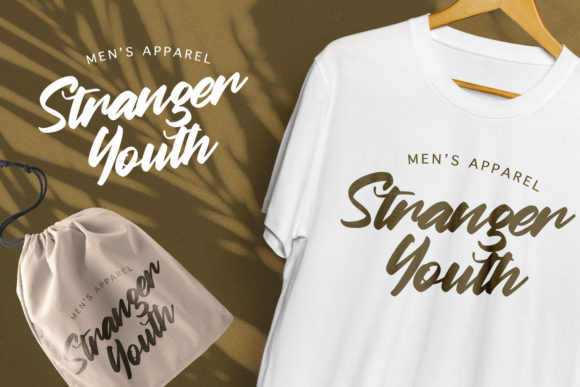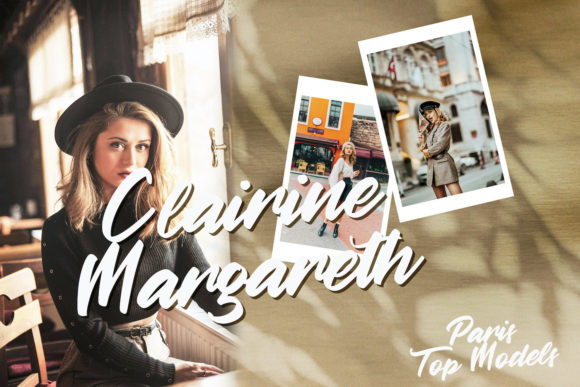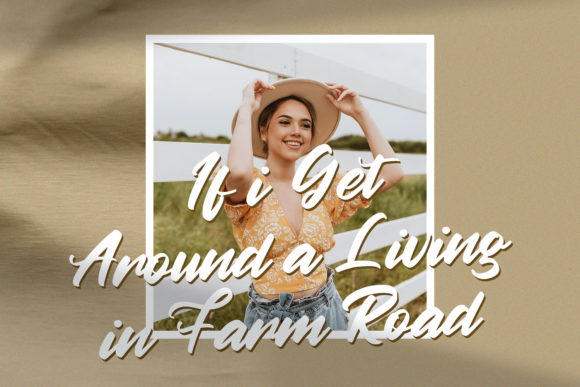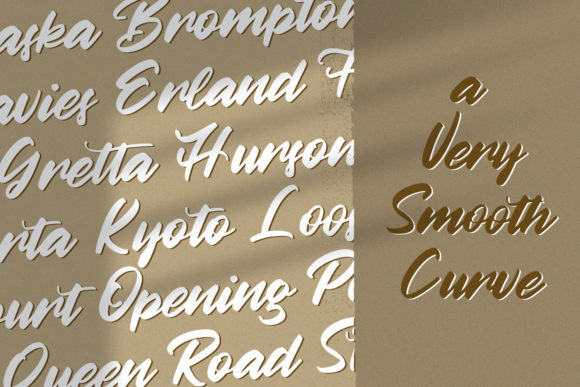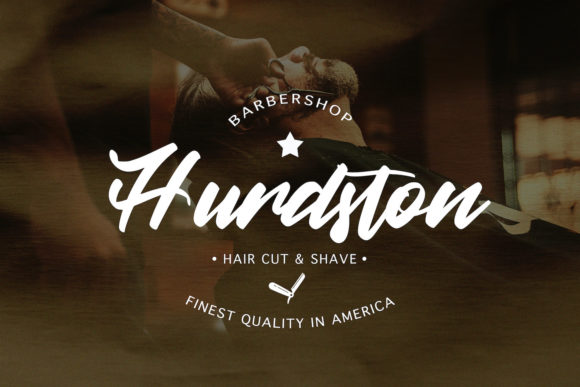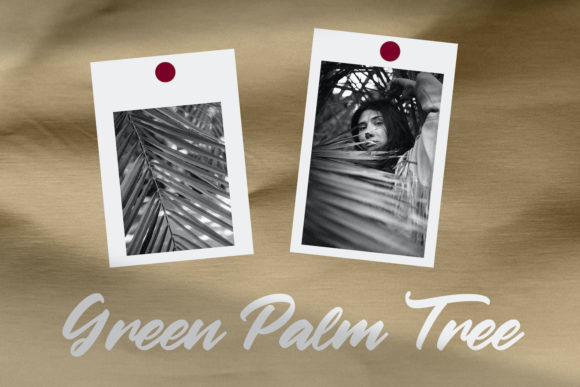
The Designer’s Delight: Falling in Love with Betty Finty Font
I’ll never forget the moment I stumbled upon Betty Finty Font while working on a wedding invitation project. My client had a very specific vision – elegant, modern, and with a touch of whimsy. I had spent hours scouring font libraries, but nothing seemed quite right. That was until I laid eyes on Betty Finty. It was love at first sight! 💕
Betty Finty is an exquisite handwritten font, masterfully designed to become a true favorite. It maintains its classy calligraphic influences while feeling contemporary and fresh. In this article, I’ll share my experience with Betty Finty, its features, and how to make the most of it in your design projects.
• 💫 Exquisite handwritten feel with a perfect balance of elegance and playfulness
• 🎨 Versatile and adaptable to various design projects, from wedding invites to branding
• 🔍 Rich in OpenType features, including glyphs and stylistic alternates
The Not-So-Perfect: 🤔
• ⚠️ Limited availability of condensed or italic versions, which might limit its use in certain projects
• 🕰️ Some users might find the font a bit too ’rounded’ or ‘bubbly’ for very formal or corporate designs
The Story Behind Betty Finty: A Designer’s Inspiration
Betty Finty was created with the intention of capturing the essence of modern calligraphy. The designer aimed to craft a font that would feel both elegant and approachable, perfect for a wide range of design projects. By combining classic calligraphic influences with a fresh, contemporary feel, Betty Finty was born.
Q: Is Betty Finty suitable for body text?
A: While Betty Finty is highly legible, it’s primarily designed for display or headline use. For body text, consider a more traditional serif or sans-serif font.